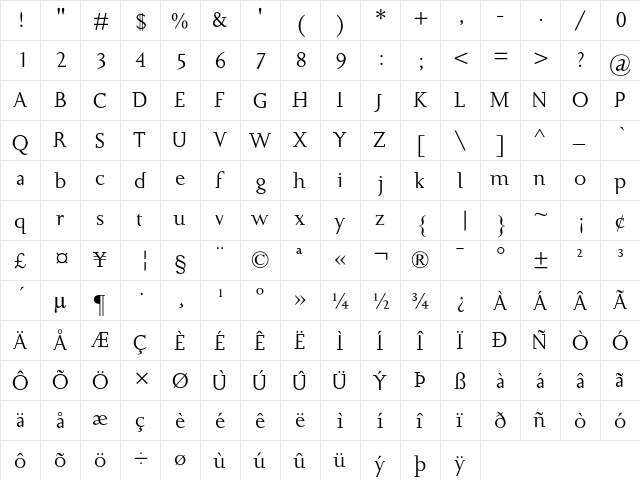
KopyKattText Katt Text
Design Context for KopyKattText Typeface
KopyKattText offers clean, dependable letterforms without strong stylistic allegiance, making it a practical choice for designers who need flexibility.